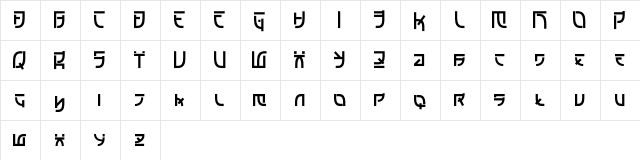
Complete Japan ramenten demo Regular glyph index. Displaying only characters natively supported by Japan ramenten demo Regular font.
Japan ramenten demo is a composed and adaptable typeface that performs quietly and consistently across a wide range of design contexts.